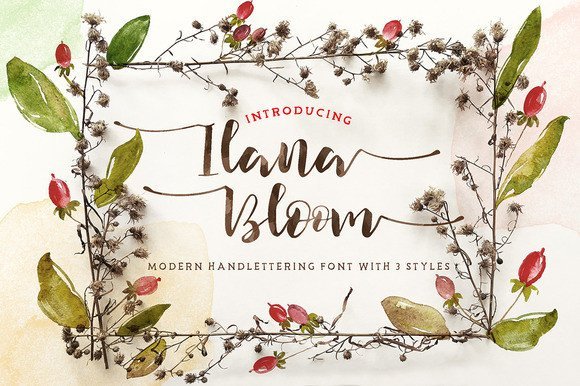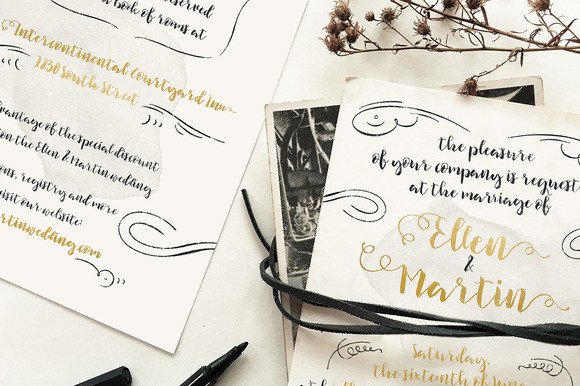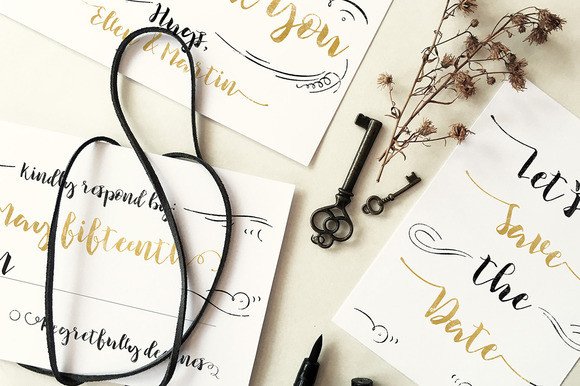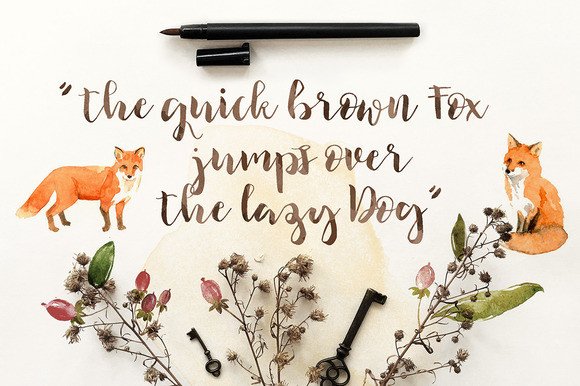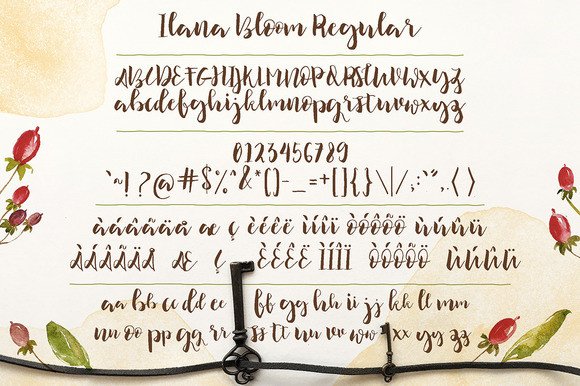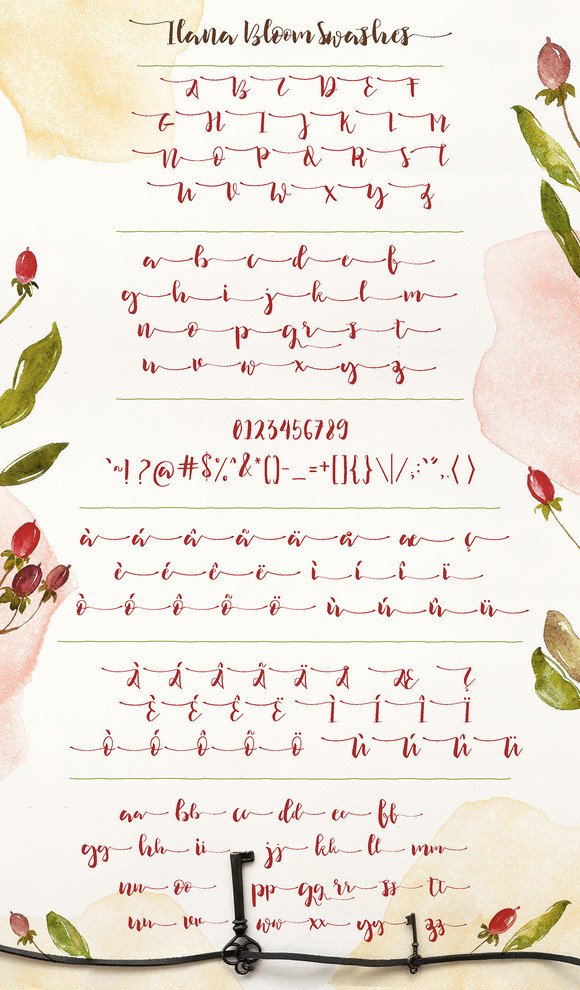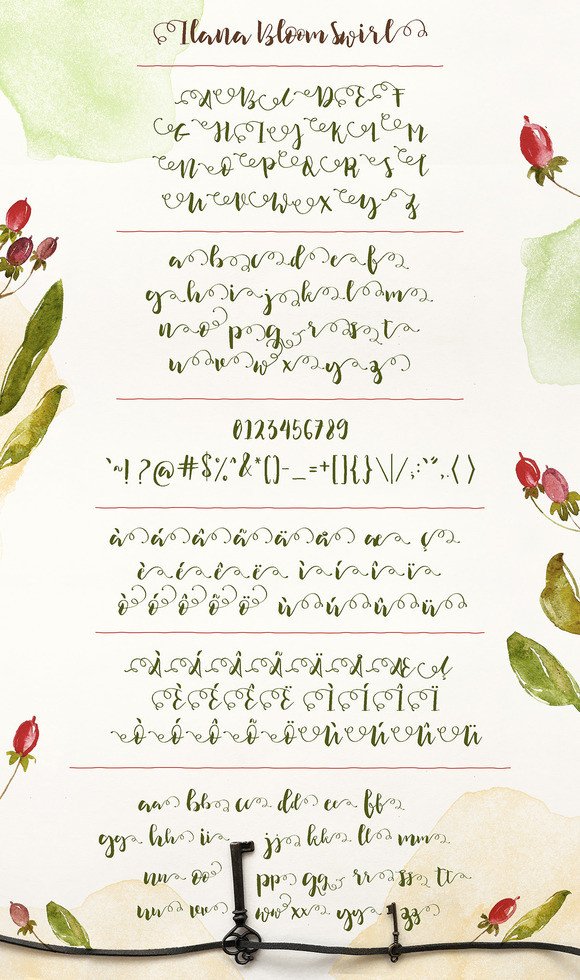
Where Creativity Meets Elegance: The Ilana Bloom Font
Do you remember that moment when you first saw a beautifully crafted wedding invitation, and it left you breathless? The way the words danced across the page, the delicate swashes, and the elegant script – it was pure magic. For designers, it’s moments like these that inspire us to create something truly special. And that’s where the Ilana Bloom Font comes in – a stunning, modern hand lettering typeface that’s perfect for adding a touch of whimsy and sophistication to your designs.
The Ilana Bloom Font is a versatile and elegant typeface that’s designed to make a statement. With its curly and neat style, it’s perfect for creating beautiful wedding cards and invites, greeting card titles, signatures, logos, and return addresses. What sets it apart is its unique combination of script, swashes, and swirls, making it a valuable addition to any designer’s toolkit.
- Unique Characteristics: Hand-drawn, elegant script with swashes, flourishes, and ligatures for a personal touch
Ilana Bloom Font Review
Ilana Bloom is a script font that has a whimsical touch to it, perfect for creating an elegant yet playful feel in your designs. The whimsical feel is what works well for me ✨, as it adds a sense of sophistication to any design. The multiple weights and styles available also make it a great choice for various projects ✨.
However, I did encounter a few limitations with this font ⚠️. One of the main issues is that it can be a bit difficult to read at smaller font sizes ⚠️. This can be a problem for designs that require a lot of text, such as blog posts or articles. Additionally, the font may not be suitable for high-contrast designs ⚠️, as the fine lines can get lost in the background.
Overall, I think Ilana Bloom is a great choice for designers who want to add a touch of elegance and sophistication to their designs. However, it’s essential to keep in mind its limitations and use it accordingly.
- ✨ Whimsical feel adds a touch of sophistication to designs
- ✨ Multiple weights and styles available
- ⚠️ Difficult to read at smaller font sizes
- ⚠️ May not be suitable for high-contrast designs
Tips for Getting the Most Out of Ilana Bloom
To get the most out of the Ilana Bloom font, use it for creative and artistic projects such as invitations, posters, and social media graphics. You can also use it for headings and titles to add a touch of elegance and sophistication. Experiment with different font sizes and colors to create a unique and eye-catching design.
The Ilana Bloom font is commonly used for:
- Party and event graphics
- Social media graphics and ads
- Headings and titles for creative projects